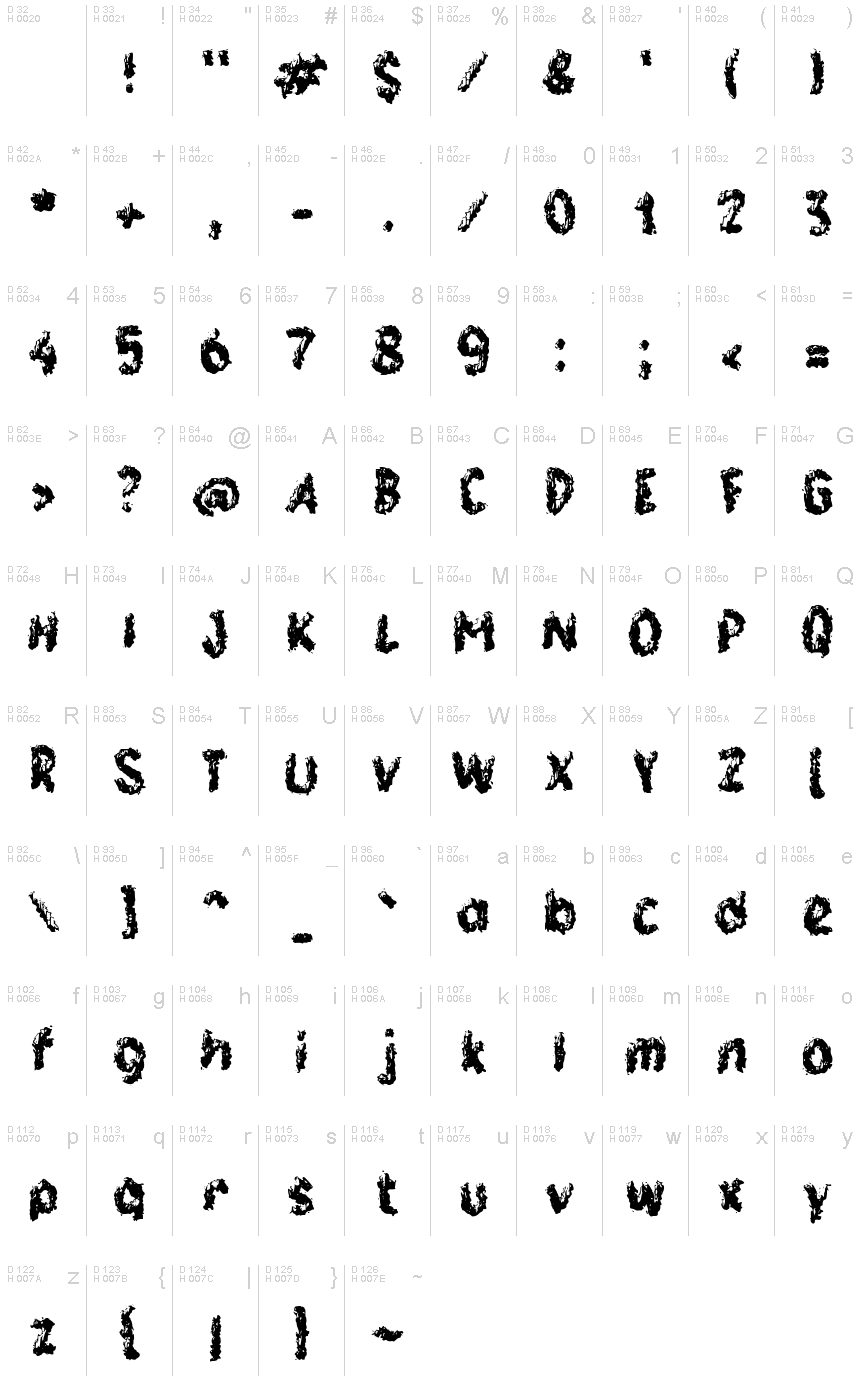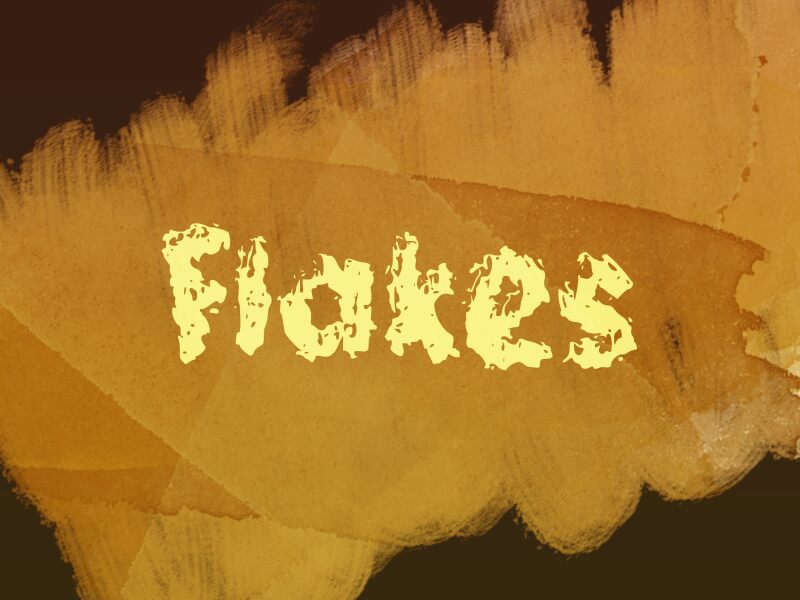
Flakes
The Flakes font, designed by wep, is a captivating display typeface that exudes a delightfully distorted and bold aesthetic. Its irregular, fragmented letterforms create a sense of dynamic movement, conveying a raw, unrefined energy that instantly grabs the viewer's attention. The bold weight of Flakes adds a striking visual presence, while the playful, organic nature of the design evokes a sense of whimsy and individuality.
This versatile font can elevate a wide range of design projects, from eye-catching headlines and impactful brand identities to edgy, rebellious packaging and posters. Flakes' distinctive character lends itself particularly well to projects that aim to convey a sense of spontaneity, experimentation, or a departure from the ordinary.